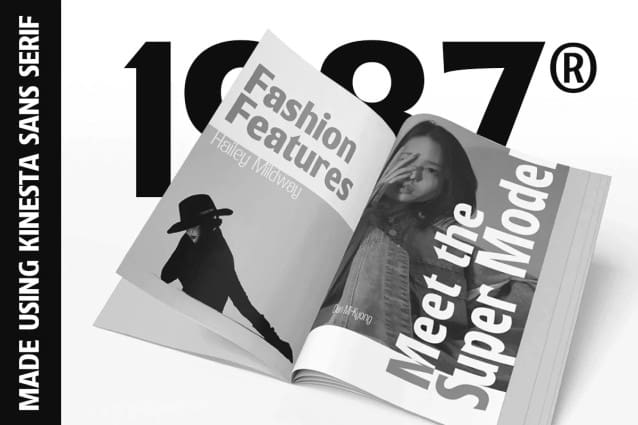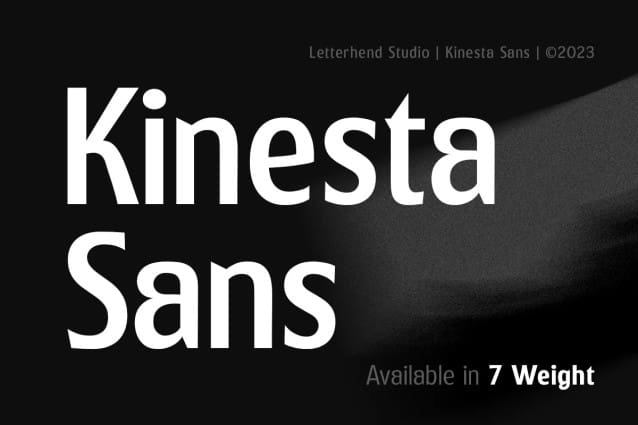
Kinesta Sans Font
Kinesta Sans Font is a variable sans serif font with with 7 weights. You can play around to match your project, whether for a standout headline, or for a tagline, you name it.
Kinesta Sans Font, perfect to be applied to the other various formal forms such as invitations, labels, logos, magazines, books, greeting / wedding cards, packaging, fashion, make up, stationery, novels, labels or any type of advertising purpose.